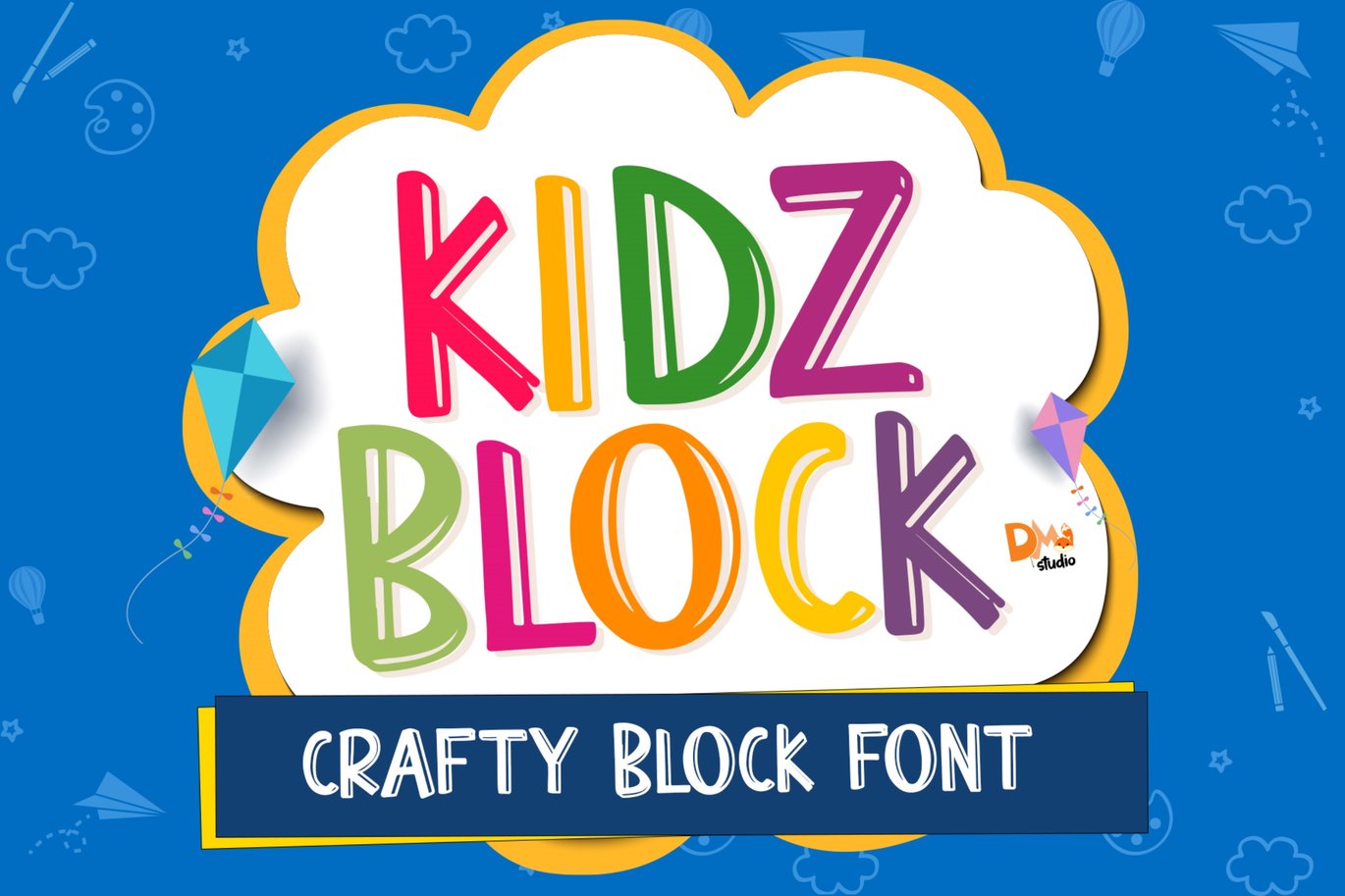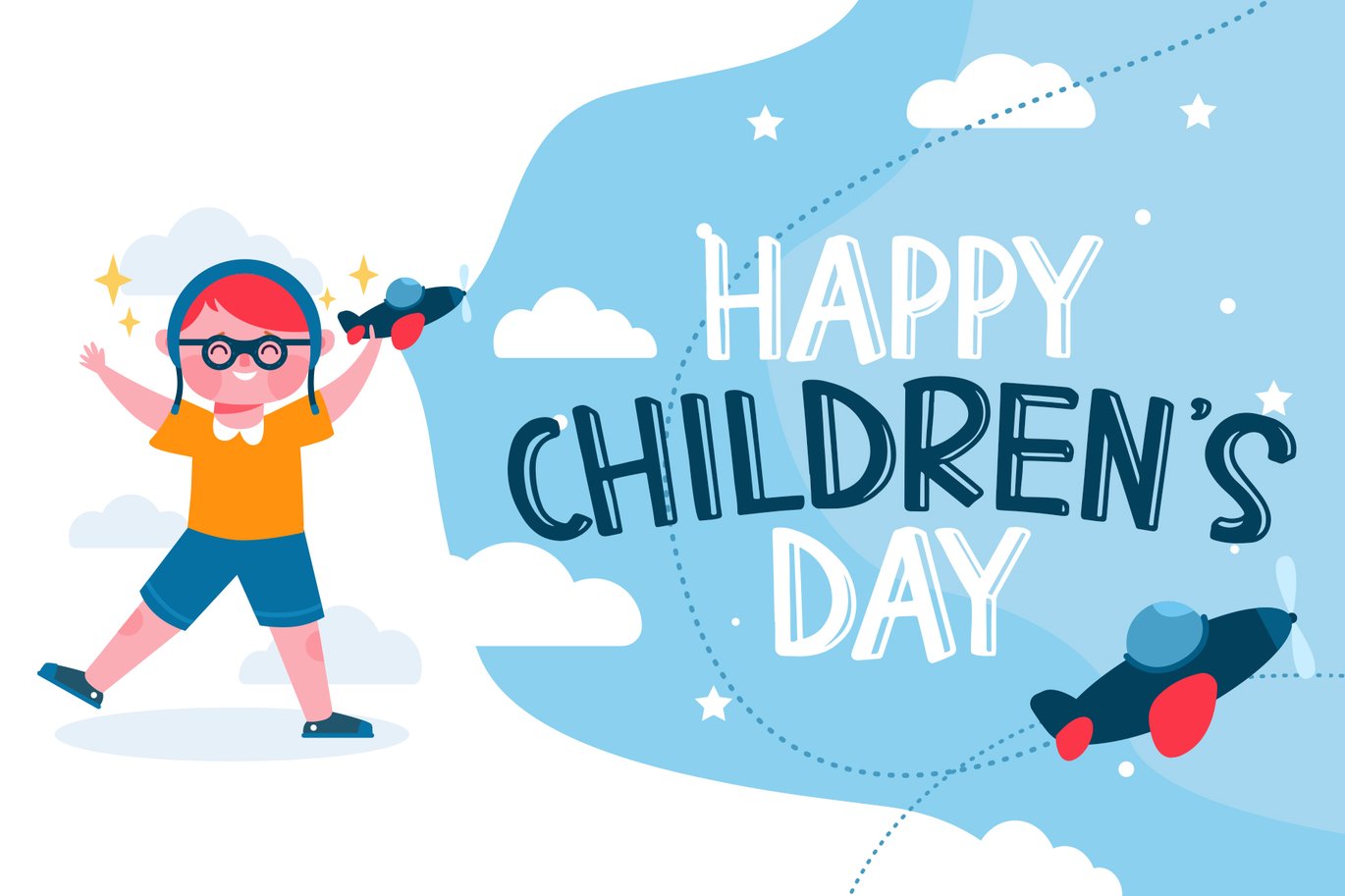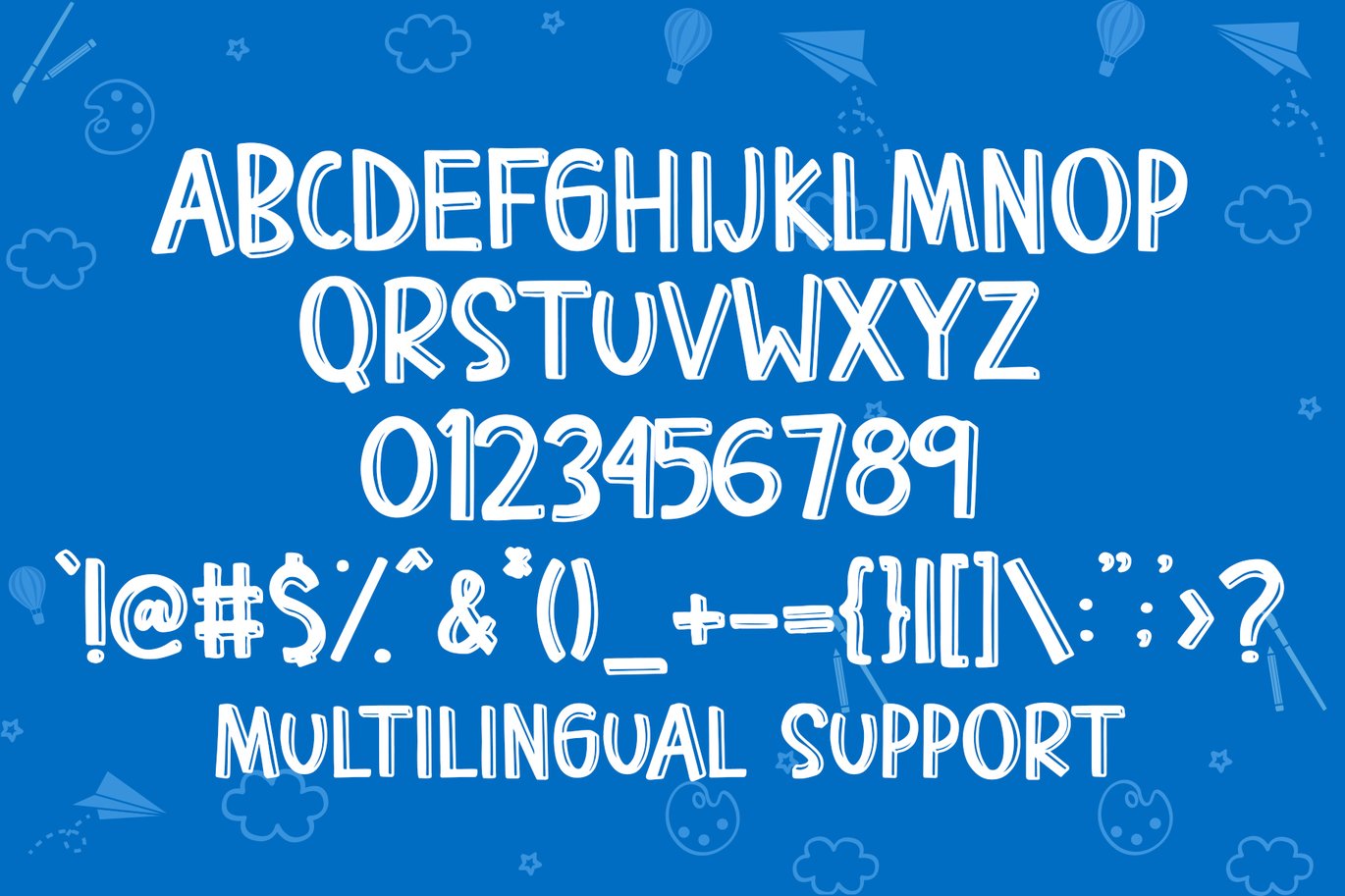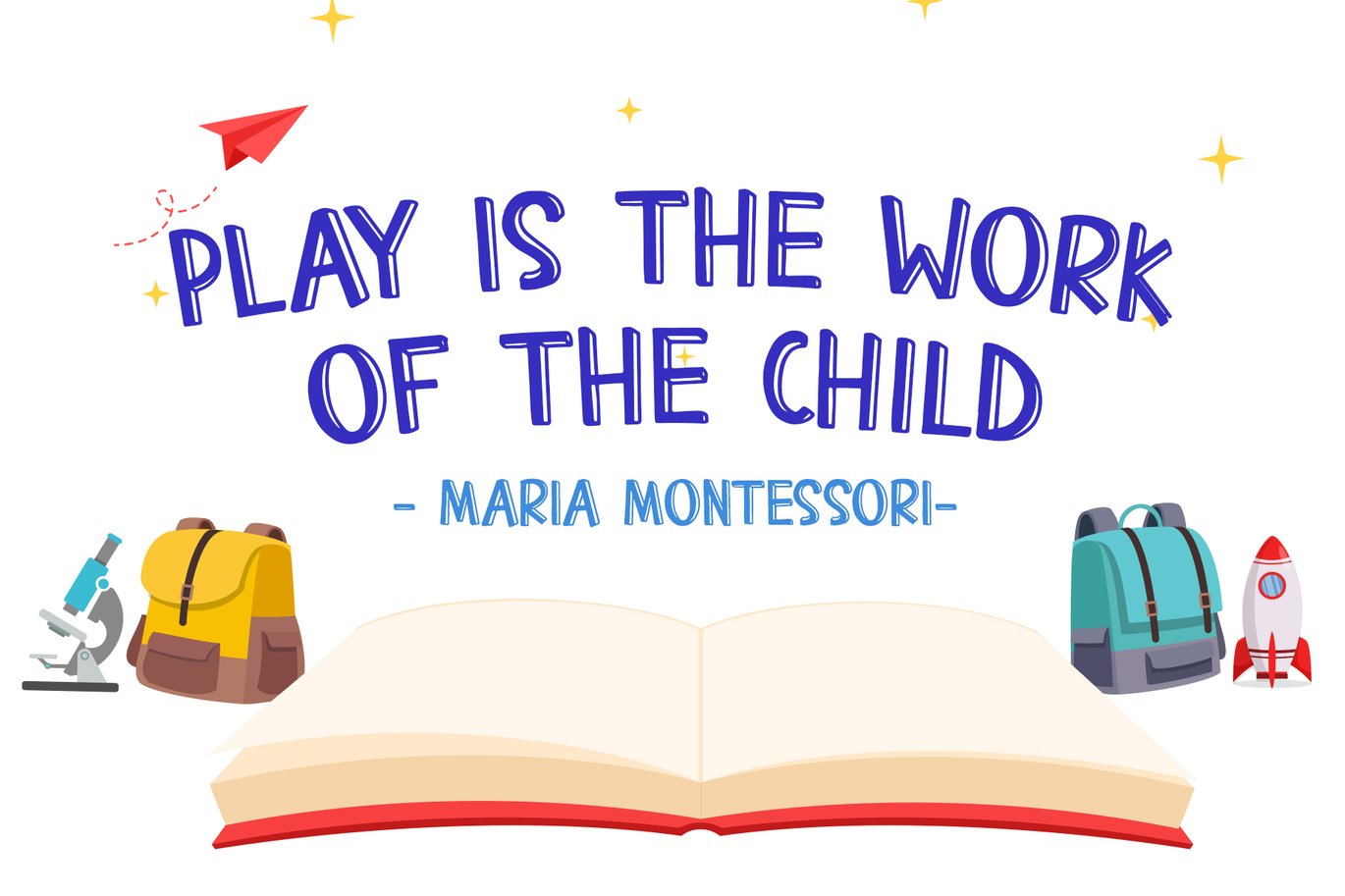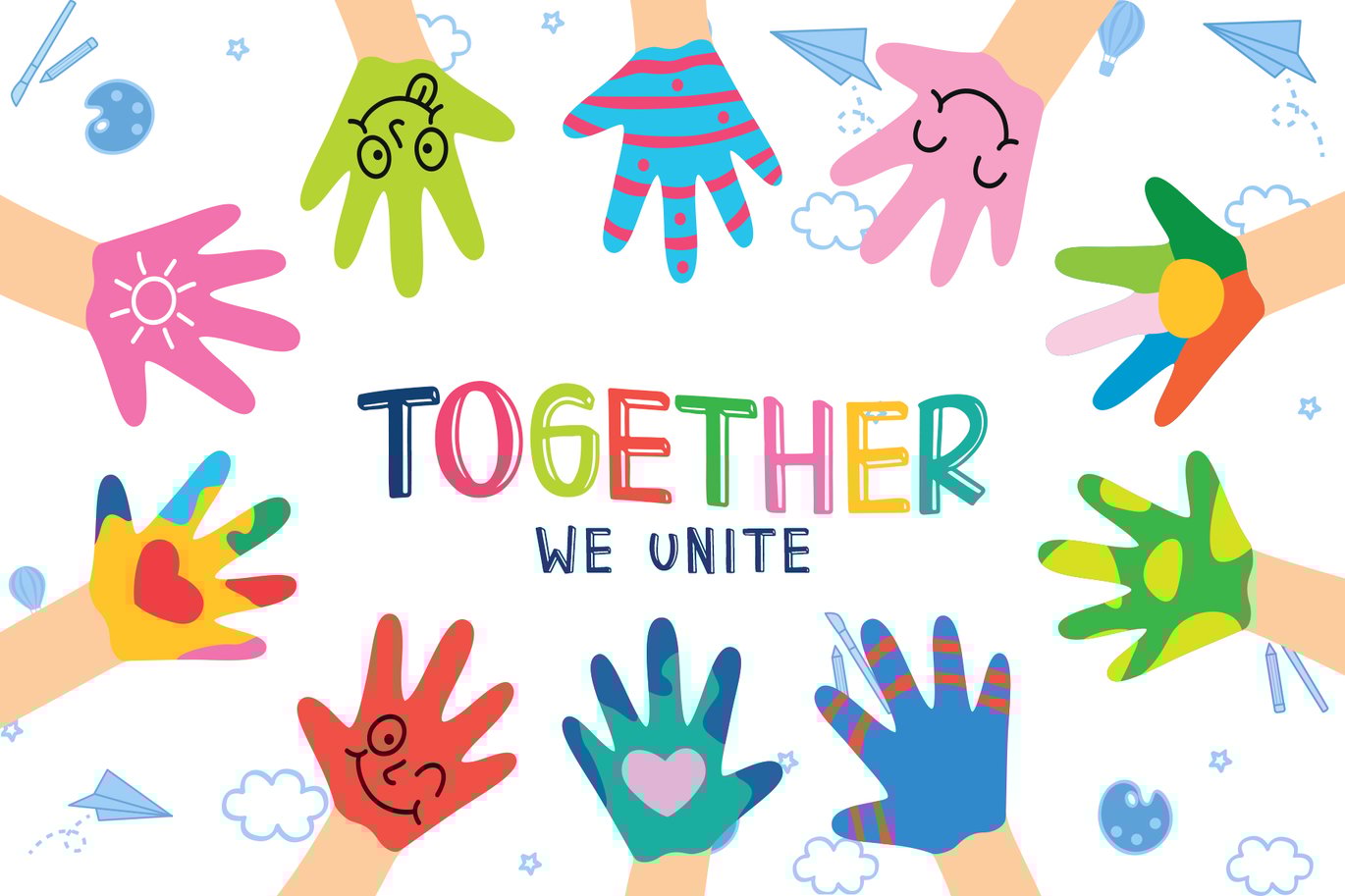
KIDZ BLOCK – crafty block font
Introducing, the crafty block font with kids style look : Kidz Block
Comes in all in caps characters, great for your diy crafts, display, sticker, kids learning, and even your social media posts.
- All in caps
- Symbols